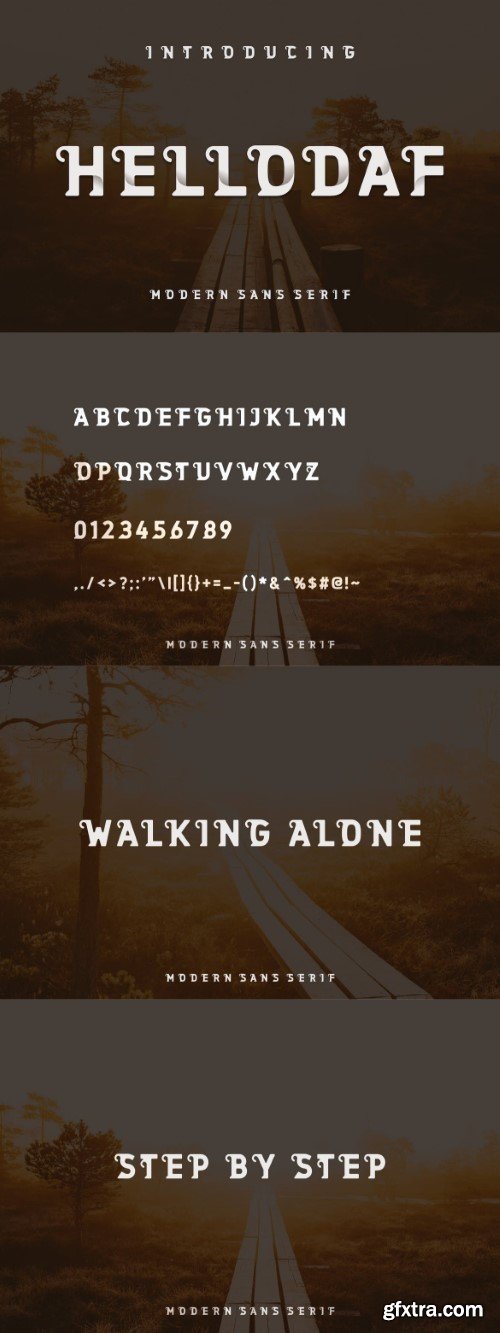
Hellodaf font
hellodaf font - Modern Font is a bold and authentic display font. The font is suitable for any branding project like logo, t-shirt printing, esport, and many more. outstanding in a wide range of contexts.